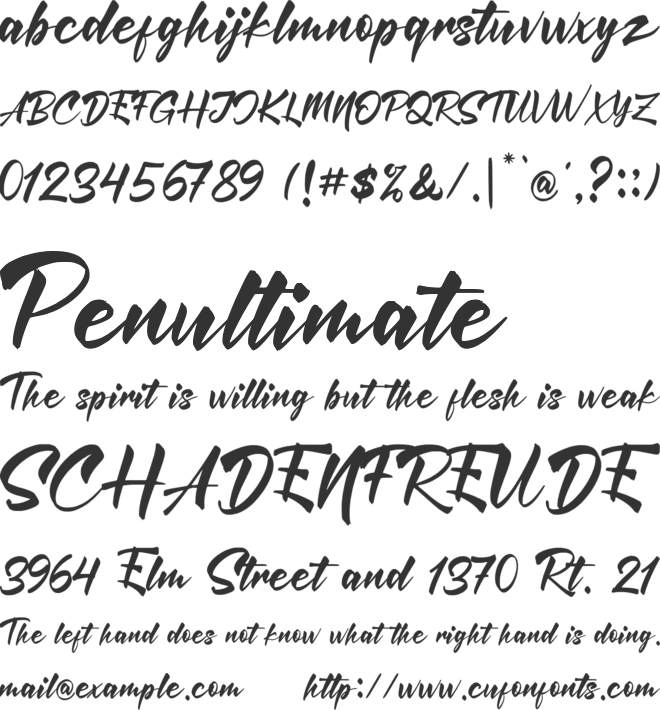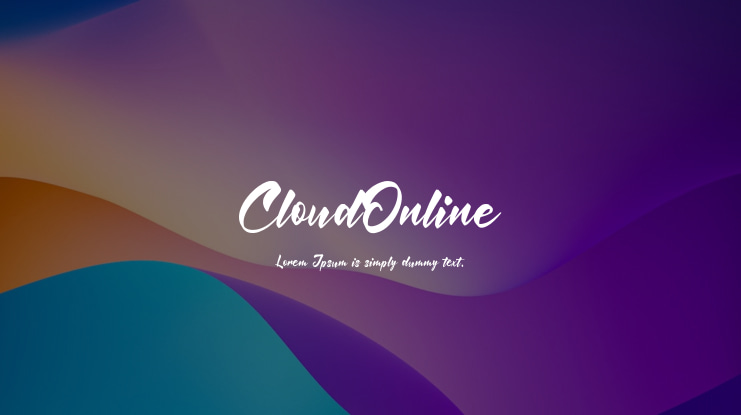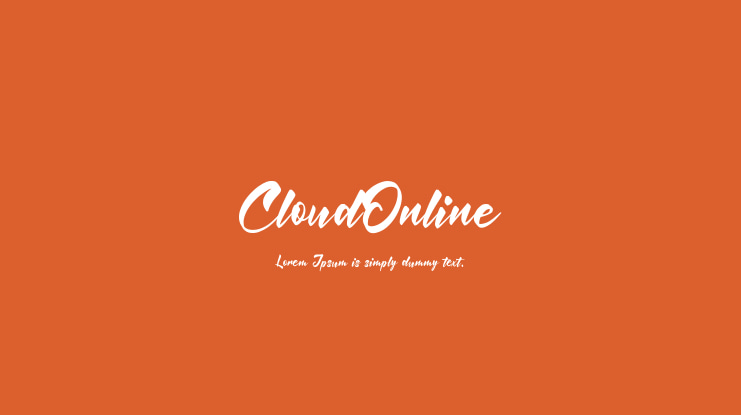
CloudOnline Font
Cloud Online Handwritten Font is crafted with naturalness and precision, making it perfect for branding, websites, and editorial designs. It includes all characters, multilingual support, punctuation, and ligatures. Everything can be easily accessed using software that supports OpenType.